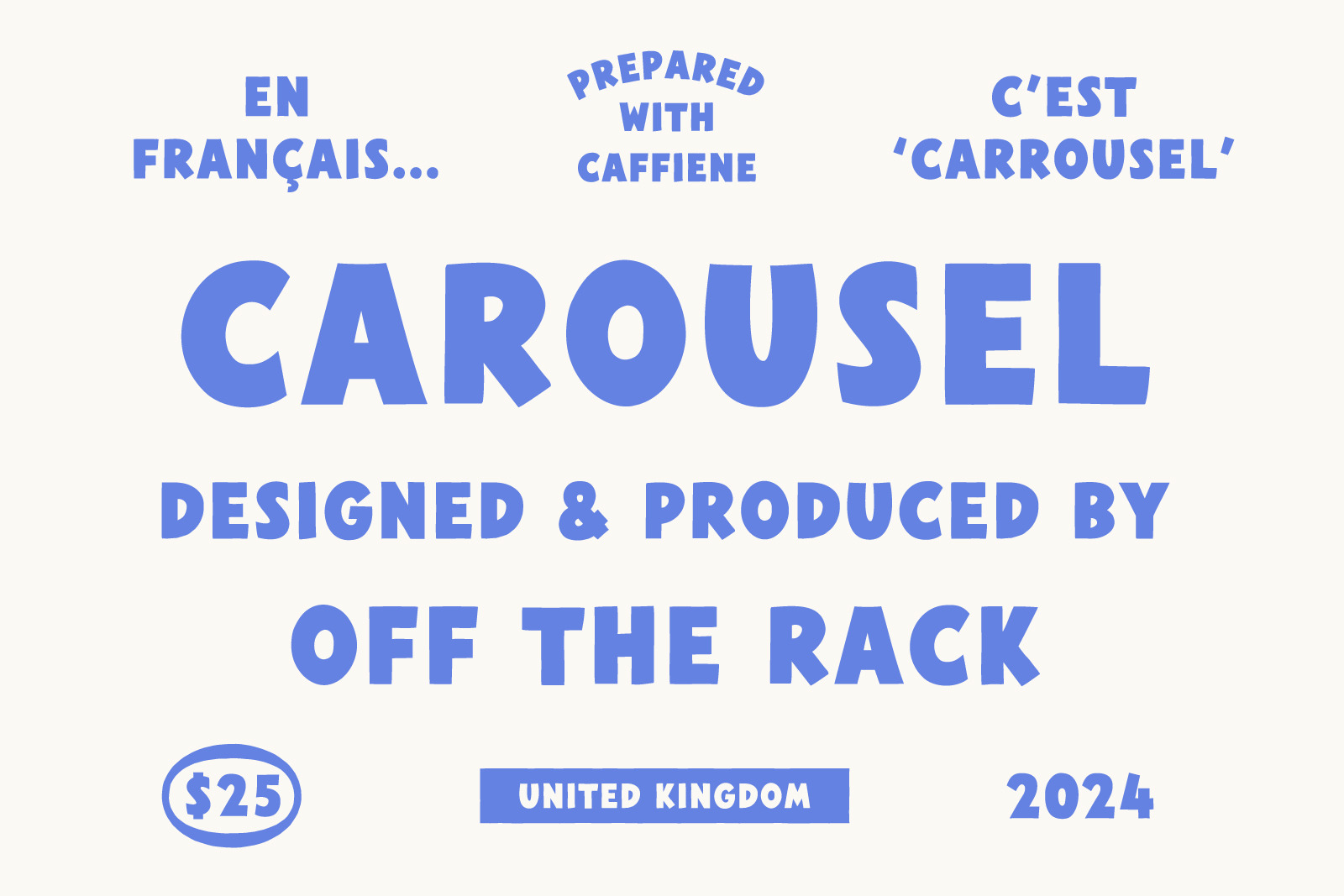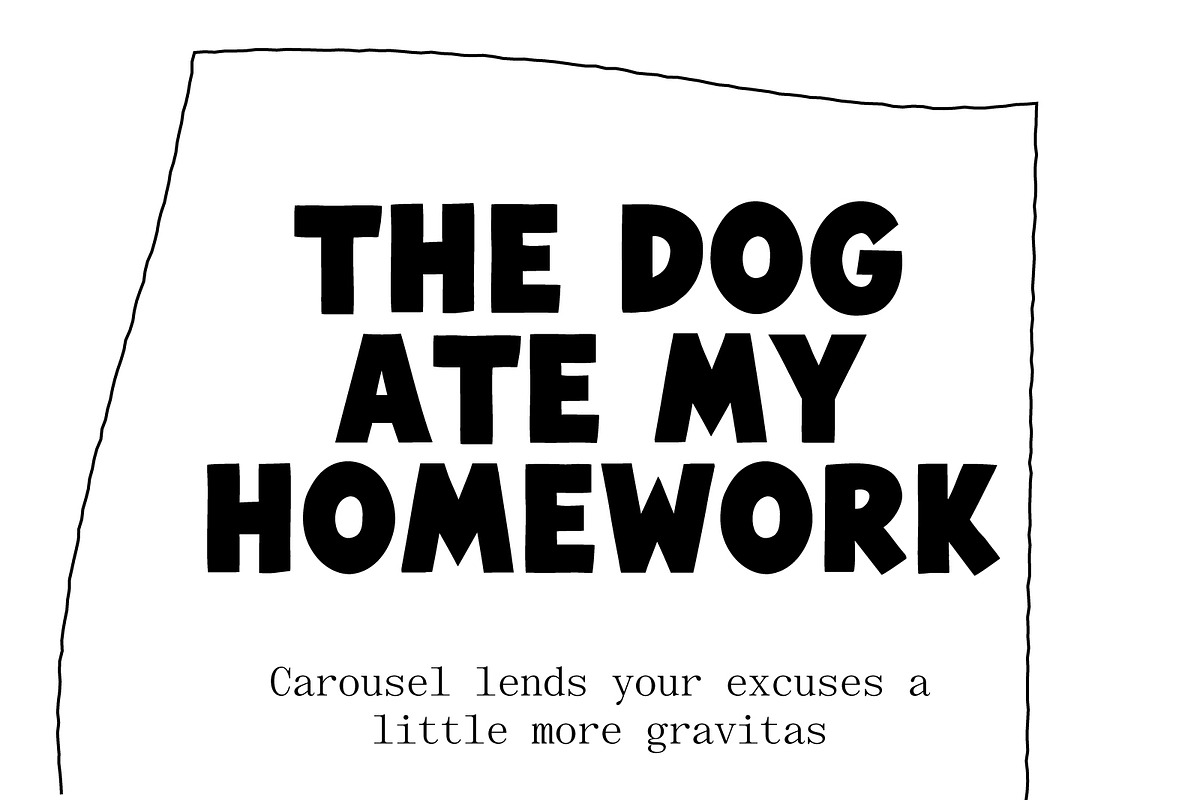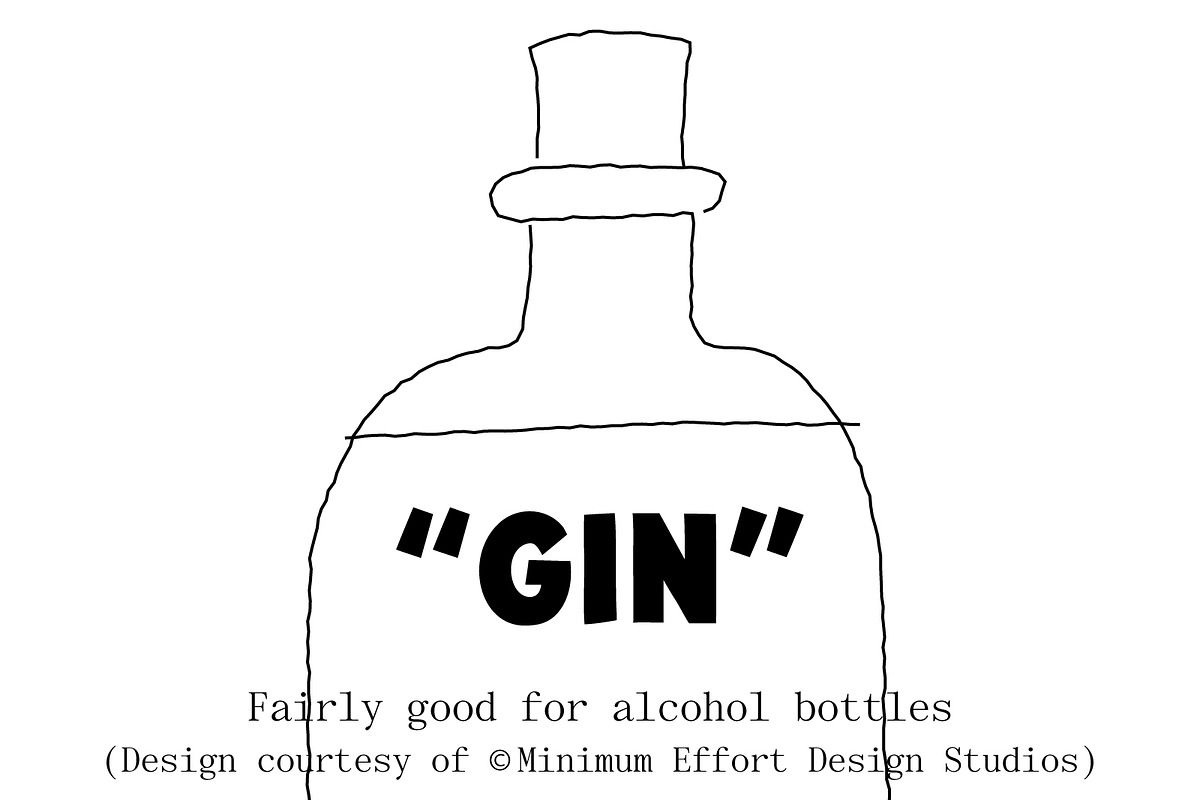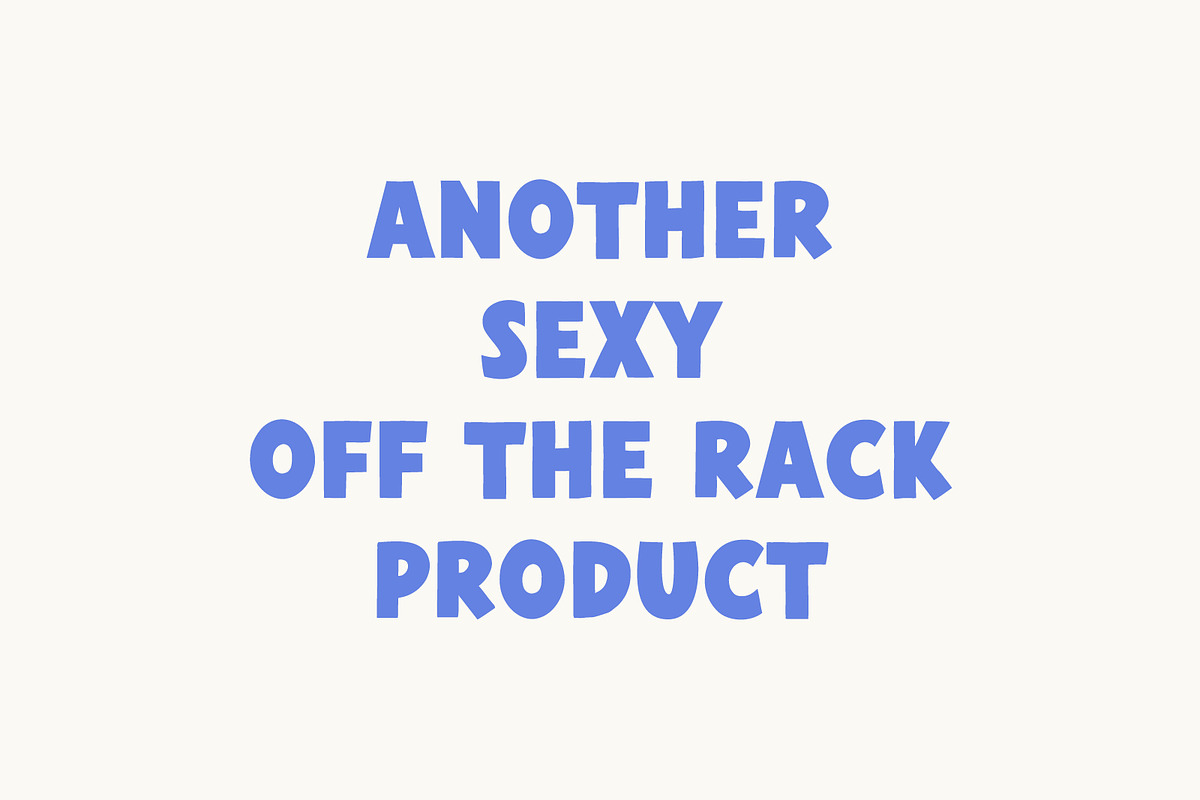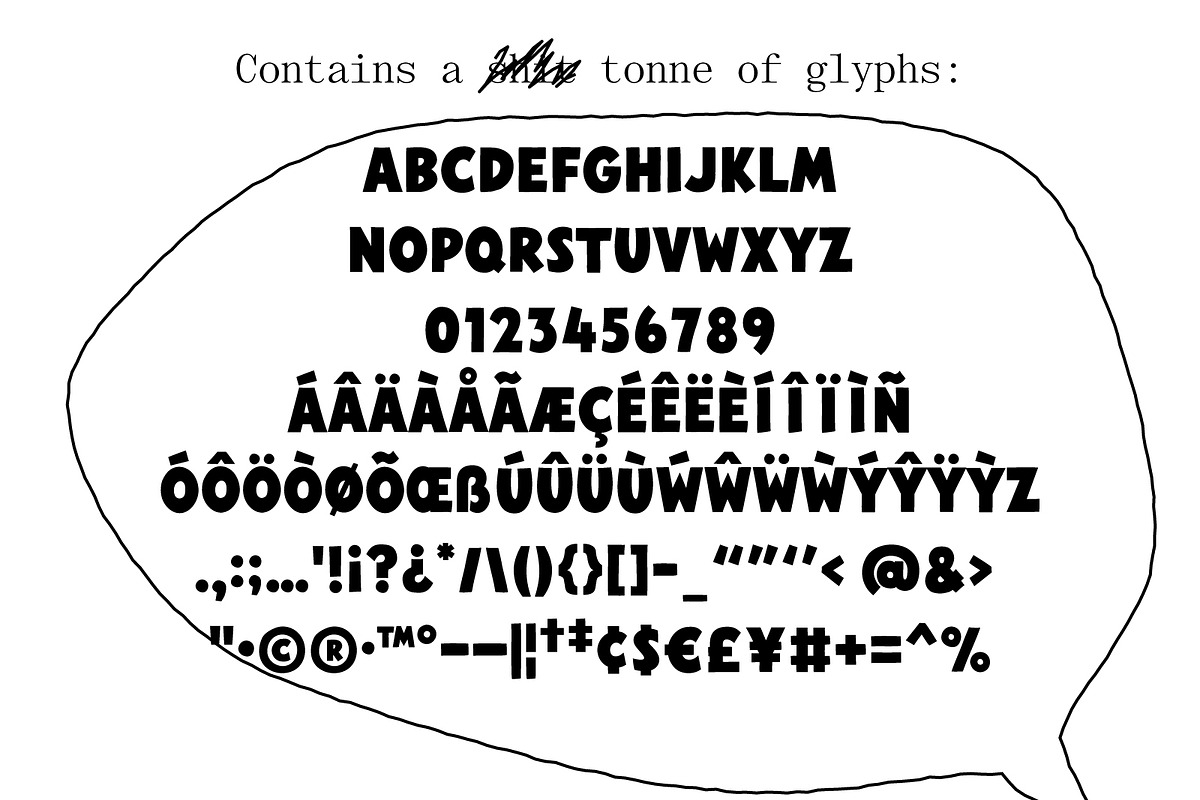
Carousel | Hand Drawn Font
Carousel is a chunky sans serif typeface, drawn exactly the way signwriters would paint shop windows in the early 1900's (except I used the track pad on my MacBook Air while listening to questionable K-Pop and drinking excessive quantities of coffee) ☕️
All my (limited) effort went into the font itself on this one, so I outsourced the product image designs to a 3rd party... I think I want my money back.
Anyway it's a good font. Easily one of my top 17.
Contains lowercase characters, digits and extensive punctuation. Supports 65+ languages, not including Klingon or Pig Latin.